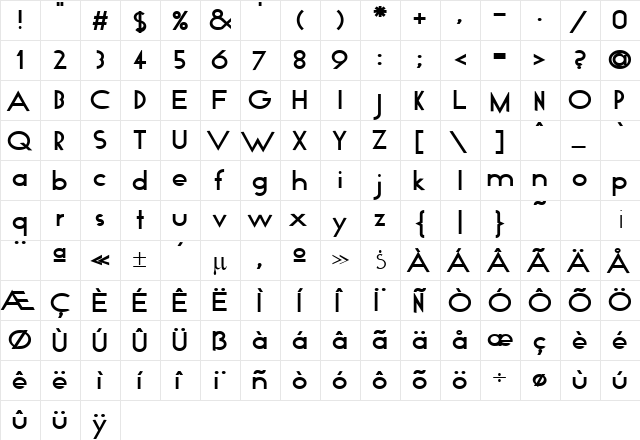
Pommarantz Bold Regular
Design Context for Pommarantz Bold Typeface
Pommarantz Bold offers clean, dependable letterforms without strong stylistic allegiance, making it a practical choice for designers who need flexibility. Its bold stroke weight gives it real presence on the page.